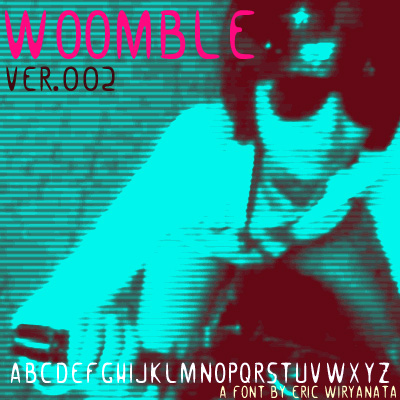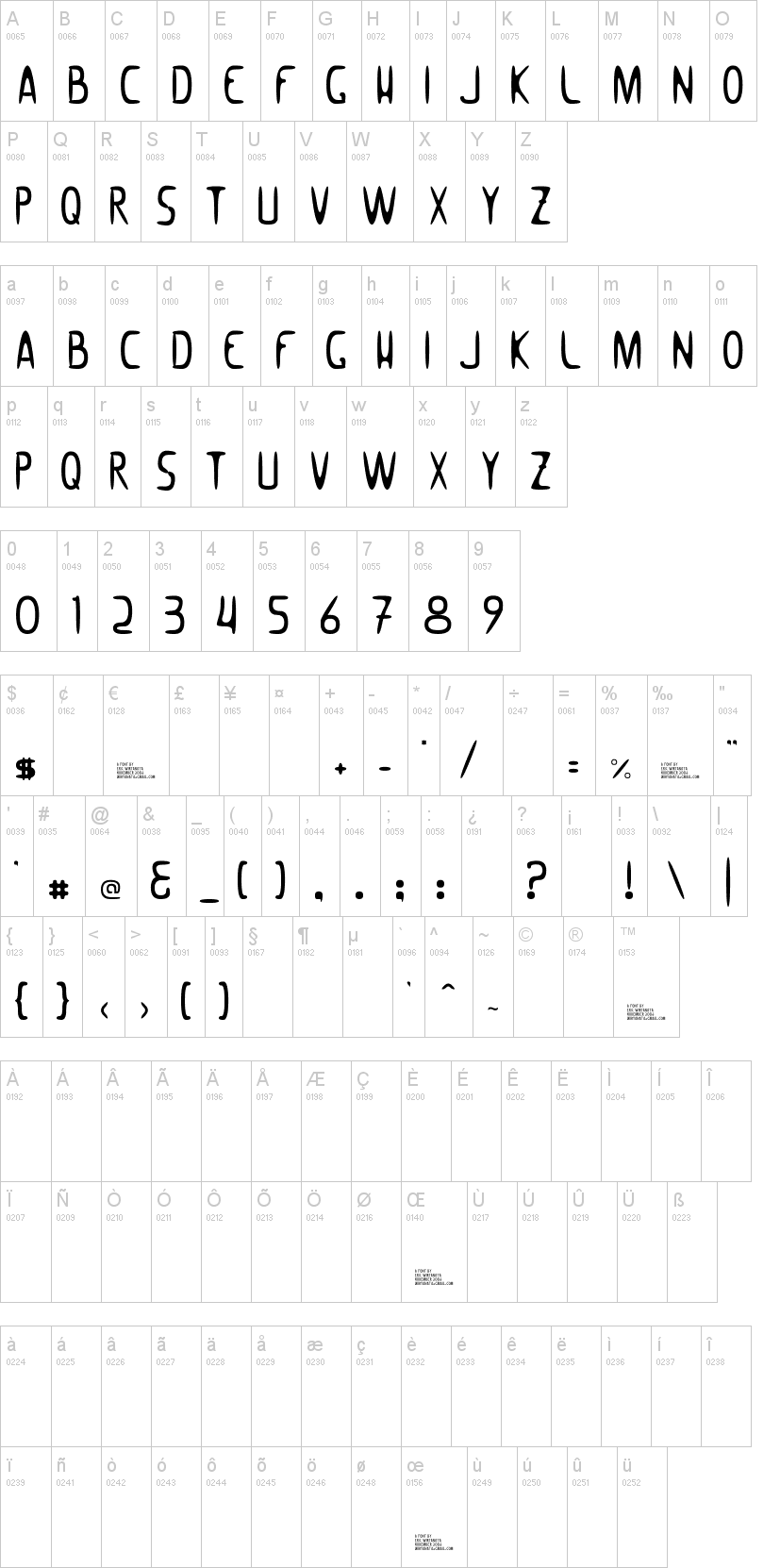
Note of the authorBy Eric Wiryanata. December 2006.
Woomble was taken from a band frontman. if you share the same musical taste you'll know who he is.
but the design was coming nowhere from him, i just thought it would fit.
the second version was a modification from the original version.